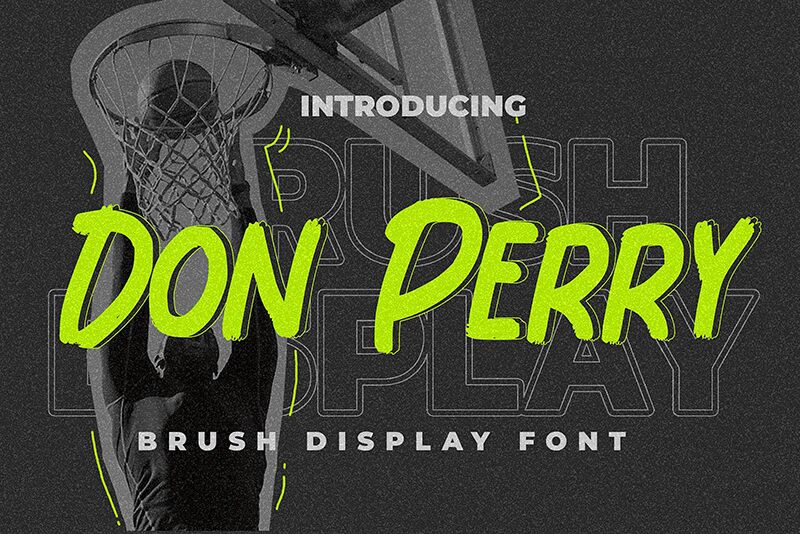
Don Perry
Don Perry, a captivating brush font created by Gassstype, exudes a harmonious blend of elegance and energy. Its dynamic strokes evoke a sense of movement, imparting a distinct character that commands attention. The font's organic, handwritten aesthetic lends a personal touch, ideal for projects seeking a touch of artisanal flair.
The versatility of Don Perry makes it a versatile choice for a wide range of design applications, from eye-catching logos and branding to impactful headlines and editorial content. Its distinctive style shines in both digital and print mediums, adding a touch of authenticity and charm to any project.